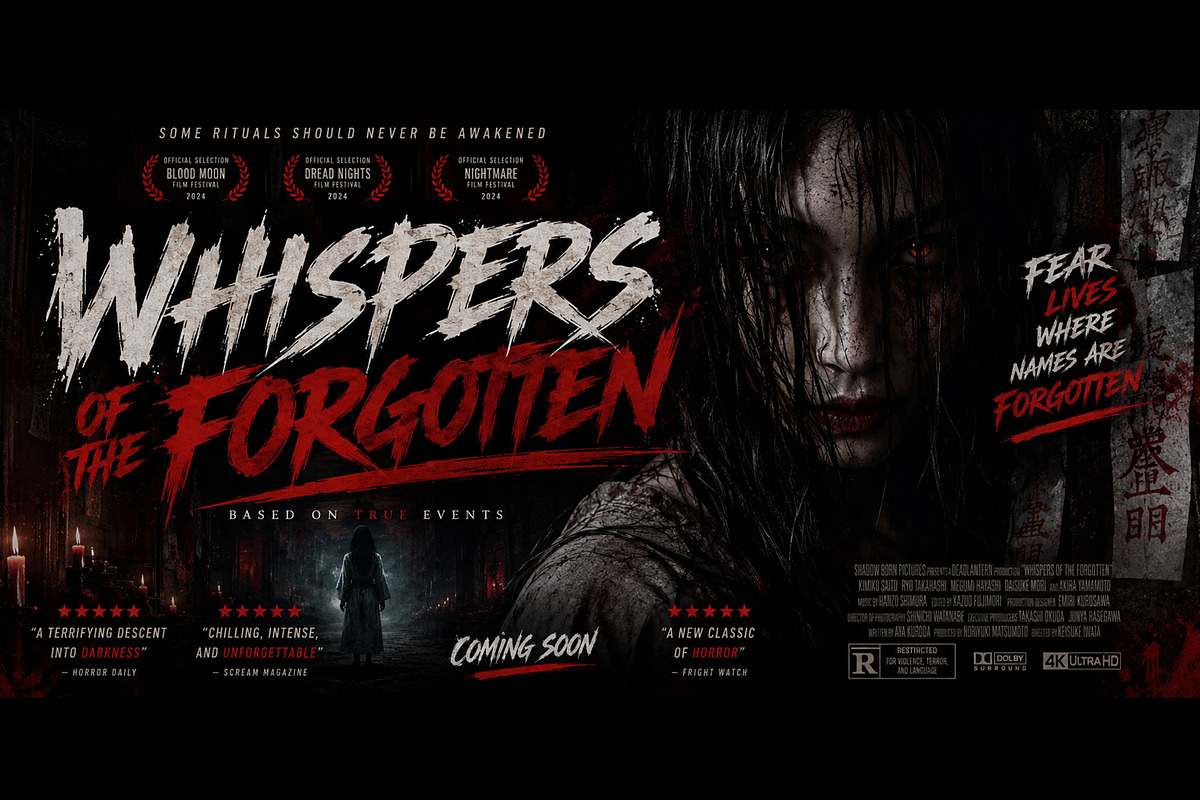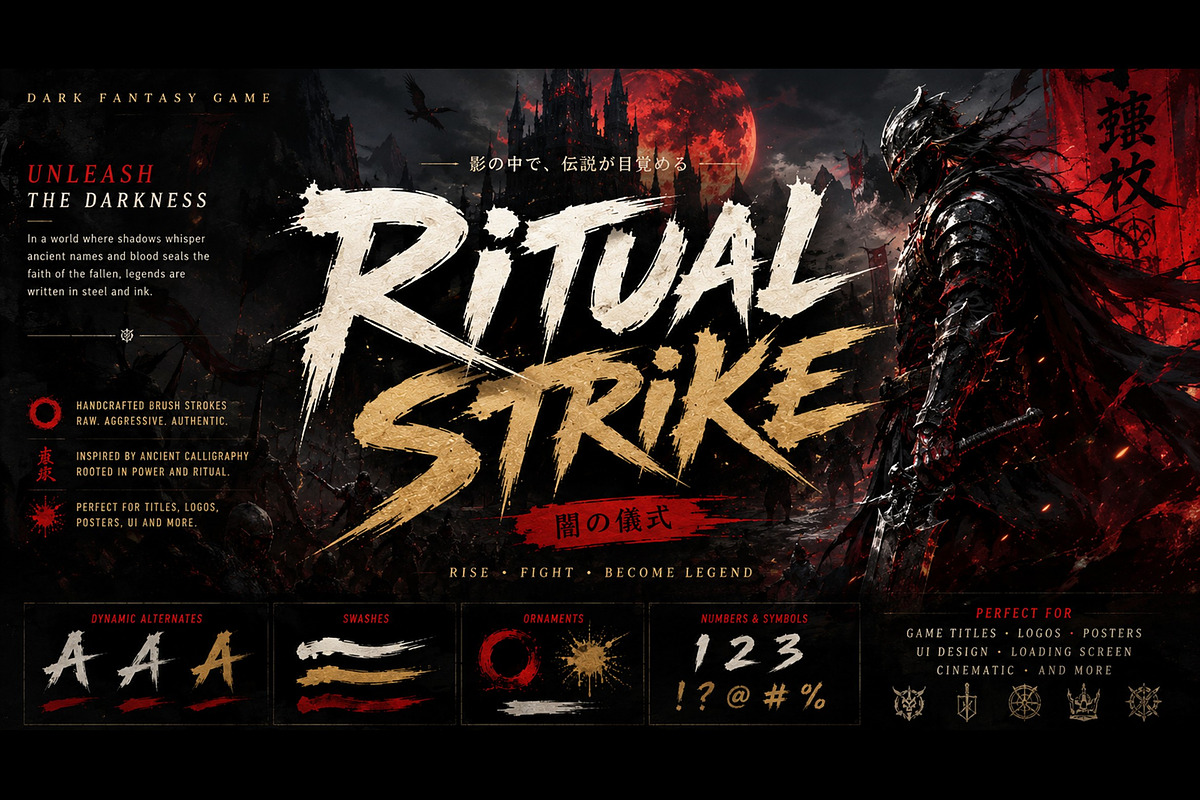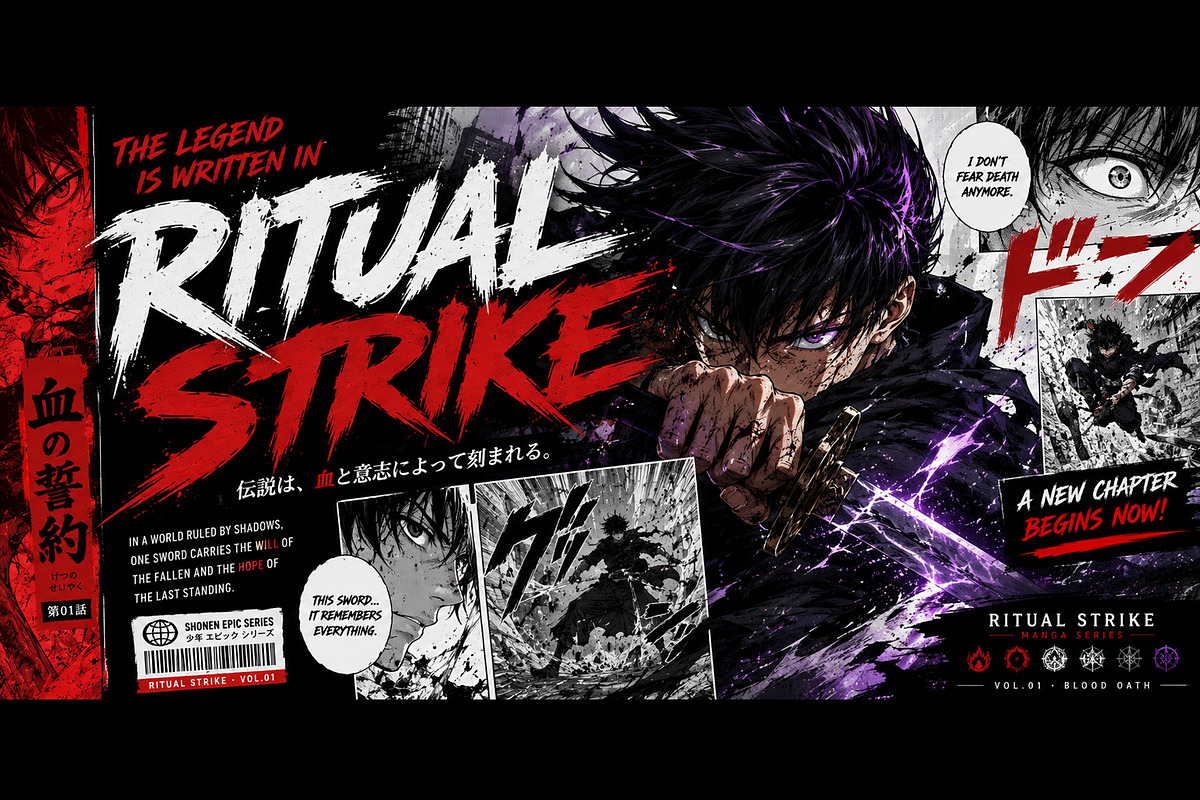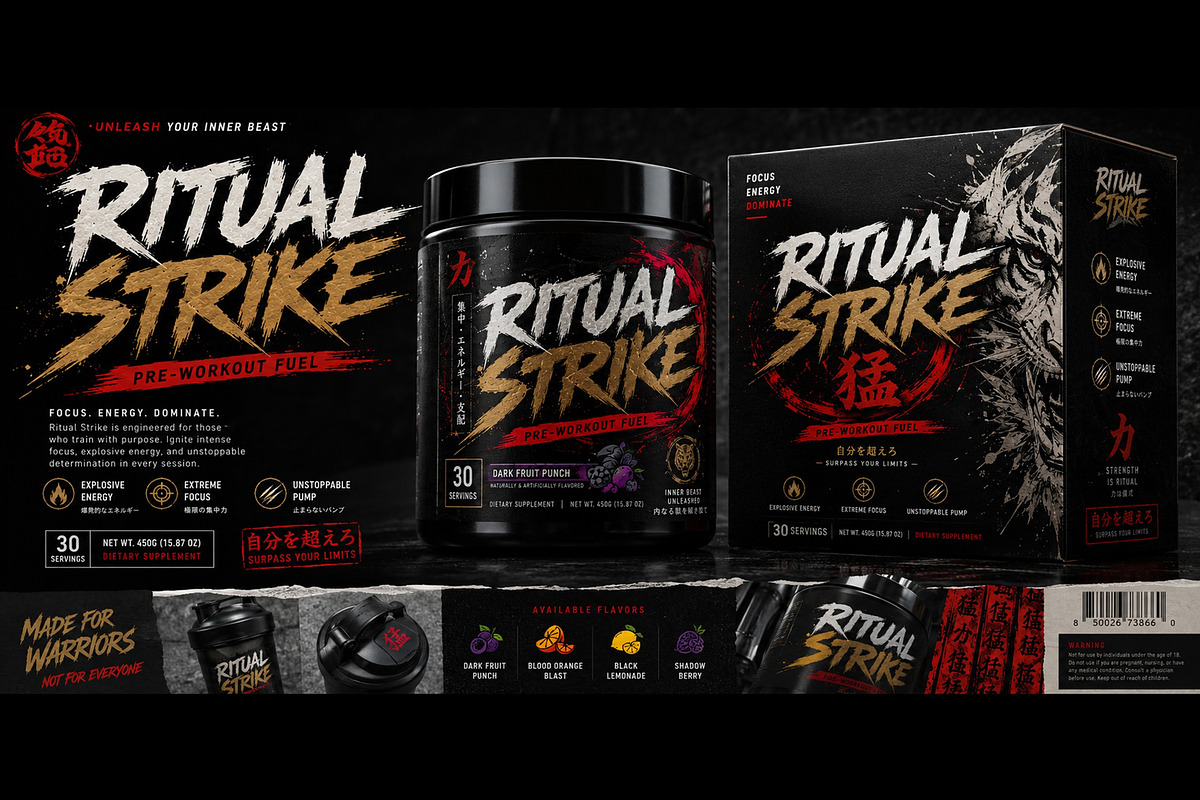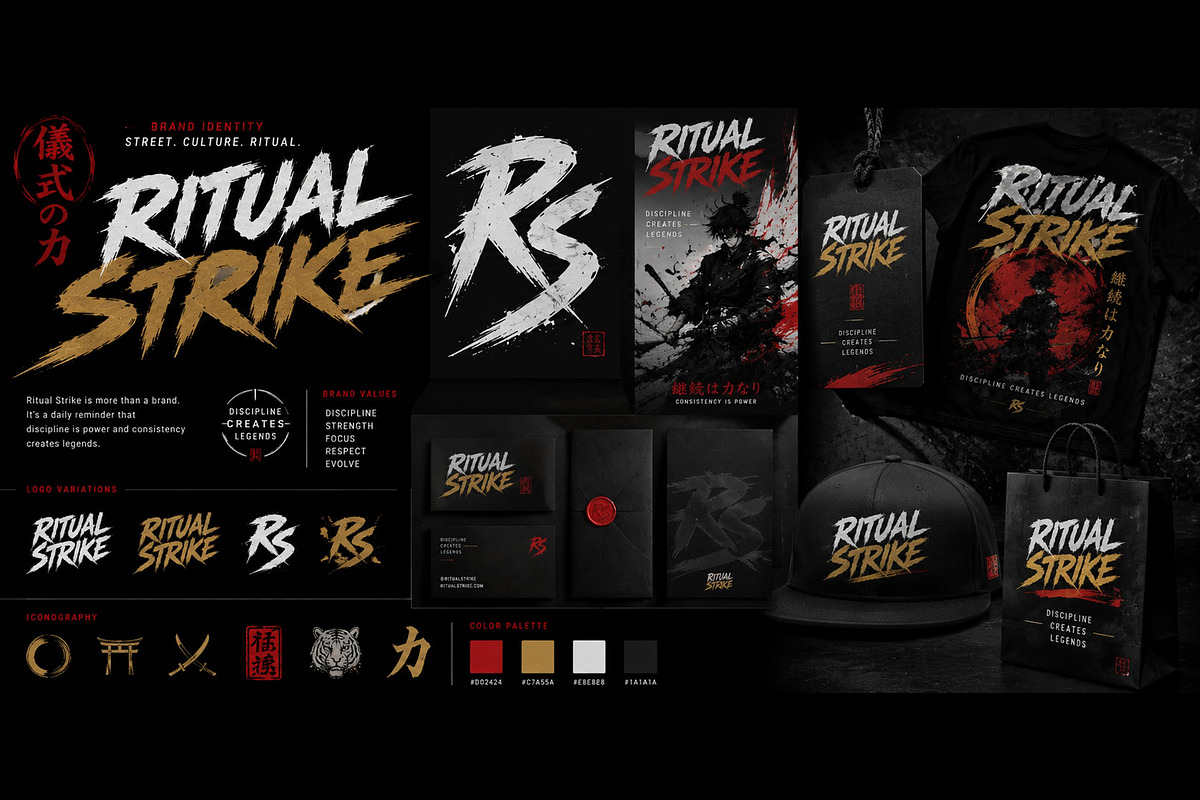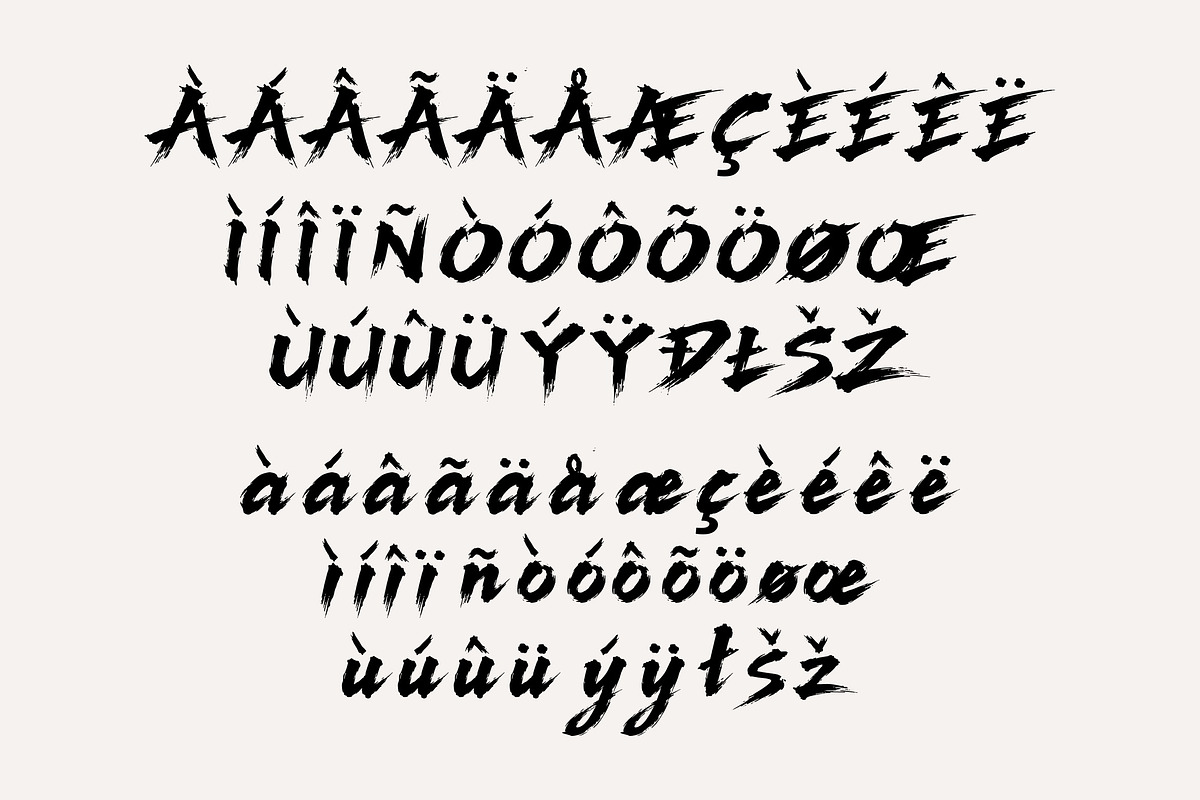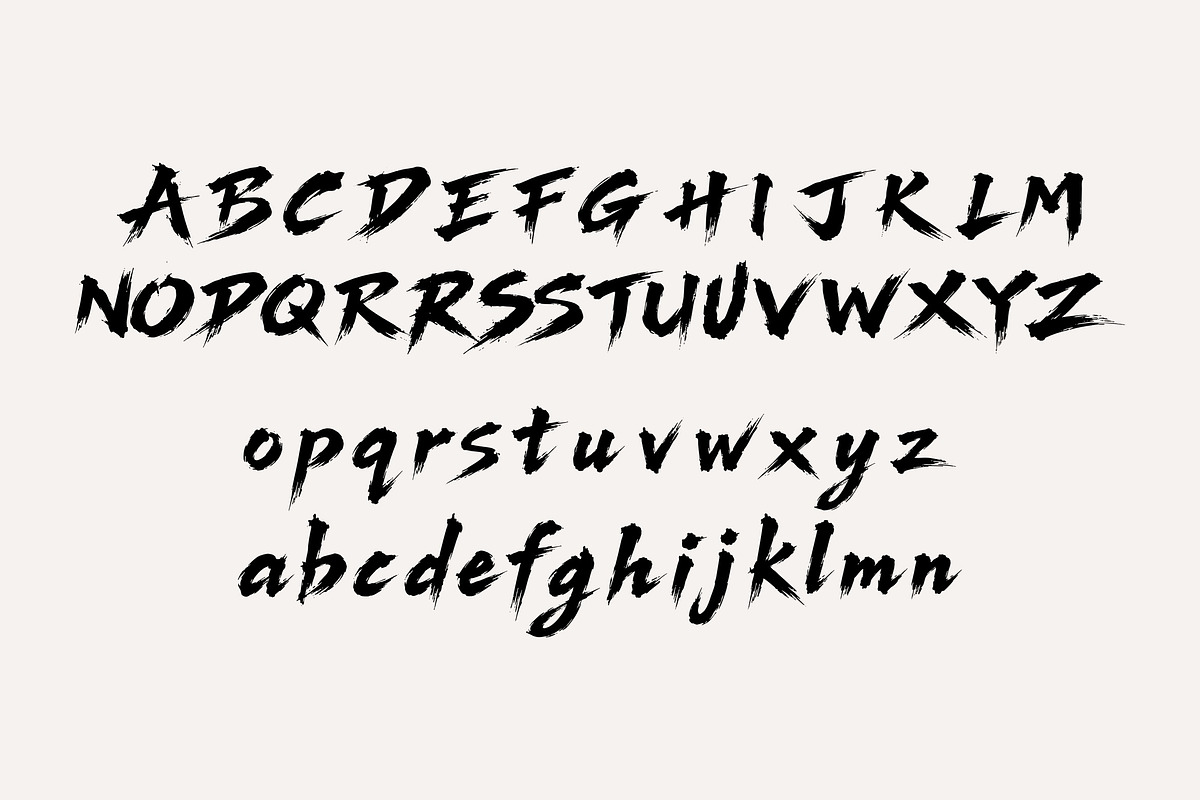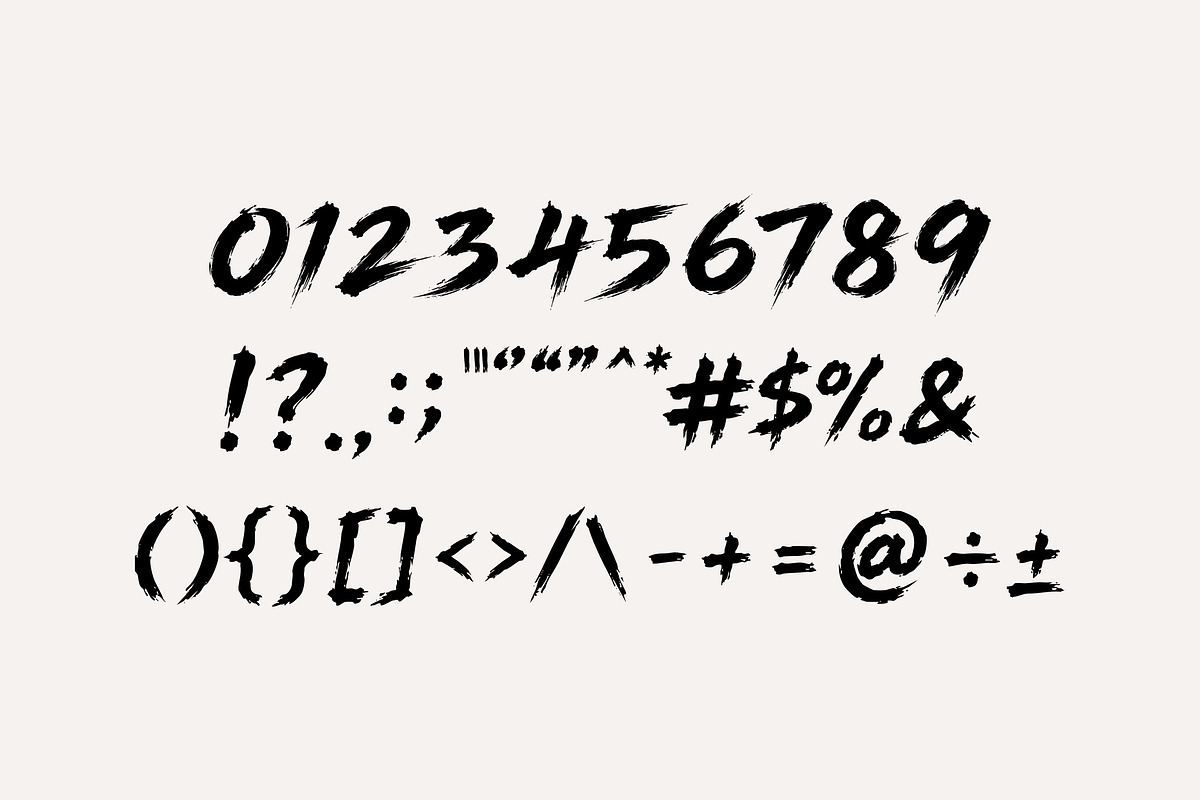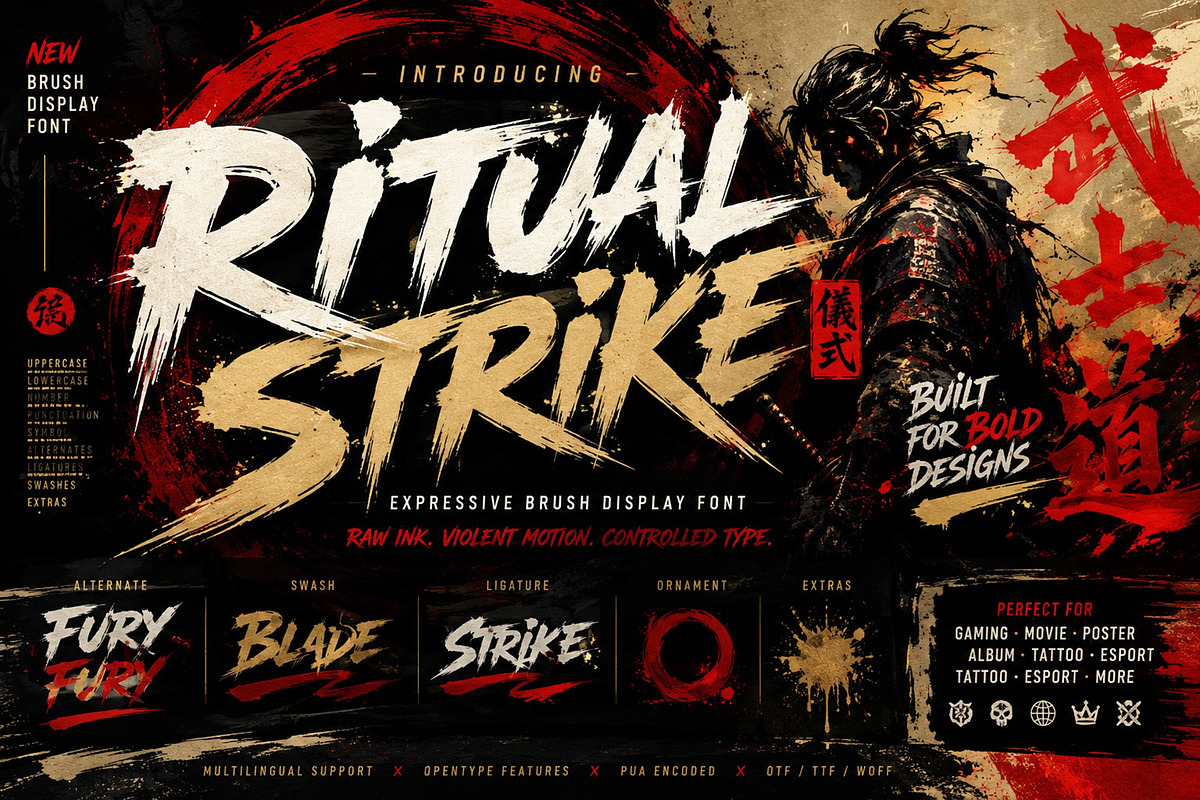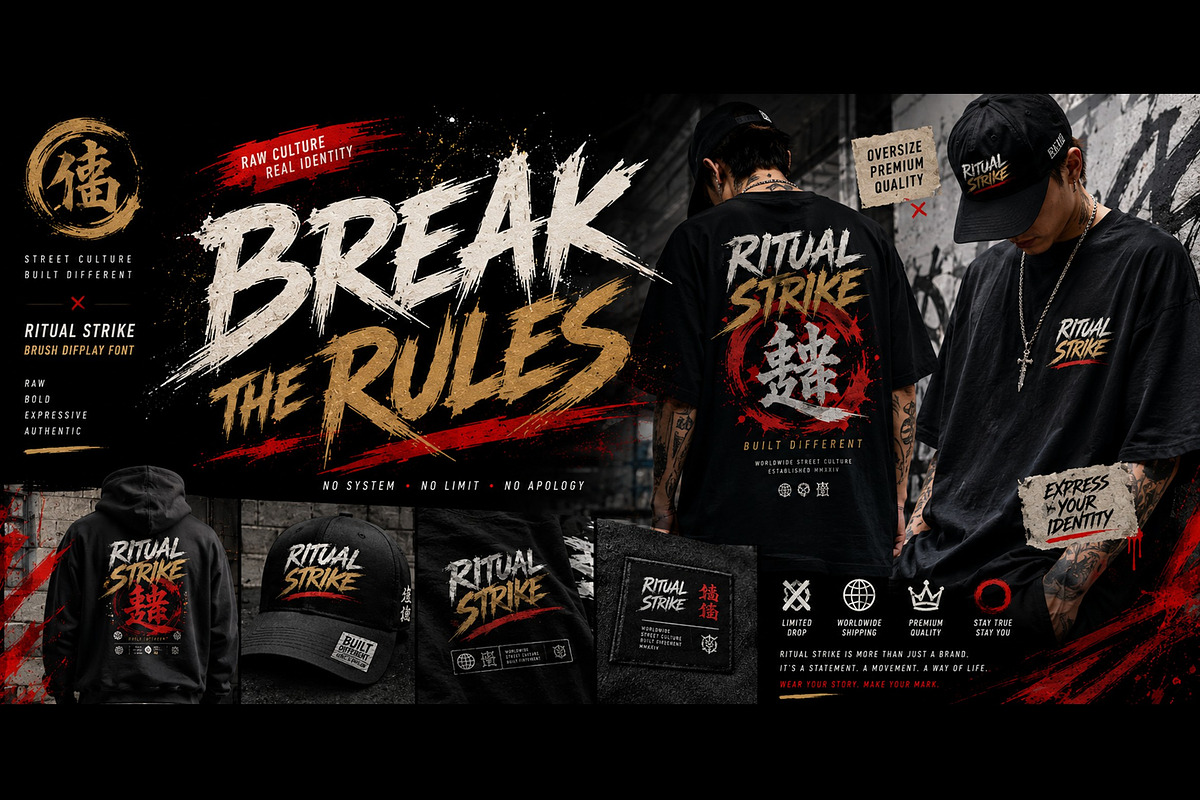
Ritual Strike
Ritual Strike is a bold brush display typeface inspired by raw ink movement, expressive calligraphy, and dark ritual aesthetics. Featuring rough dry-brush textures, sharp terminals, dynamic strokes, dramatic alternates, and energetic swashes, it is designed for striking headlines, posters, album artwork, gaming, horror, dark fantasy, and cinematic branding.